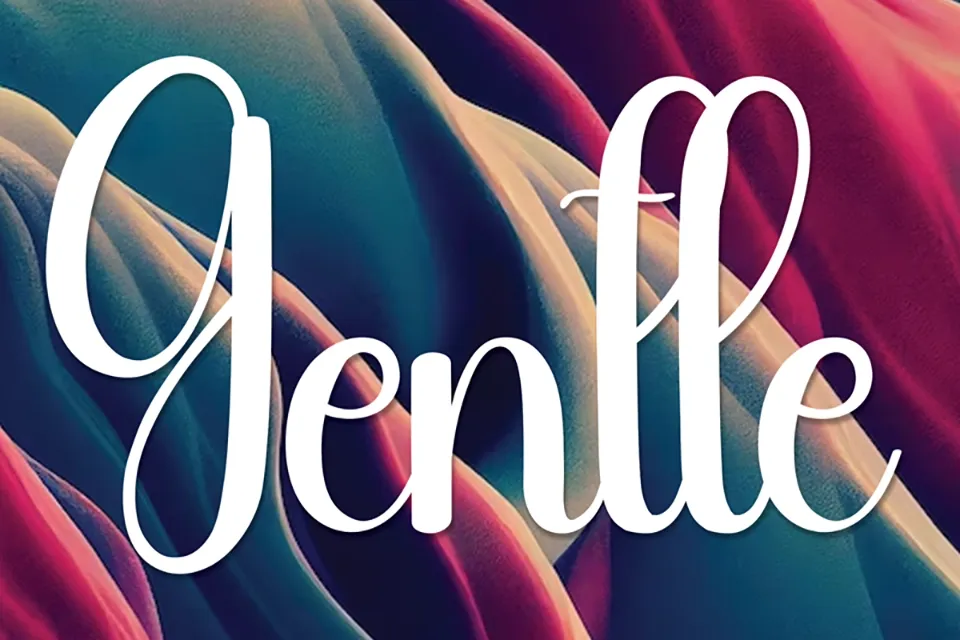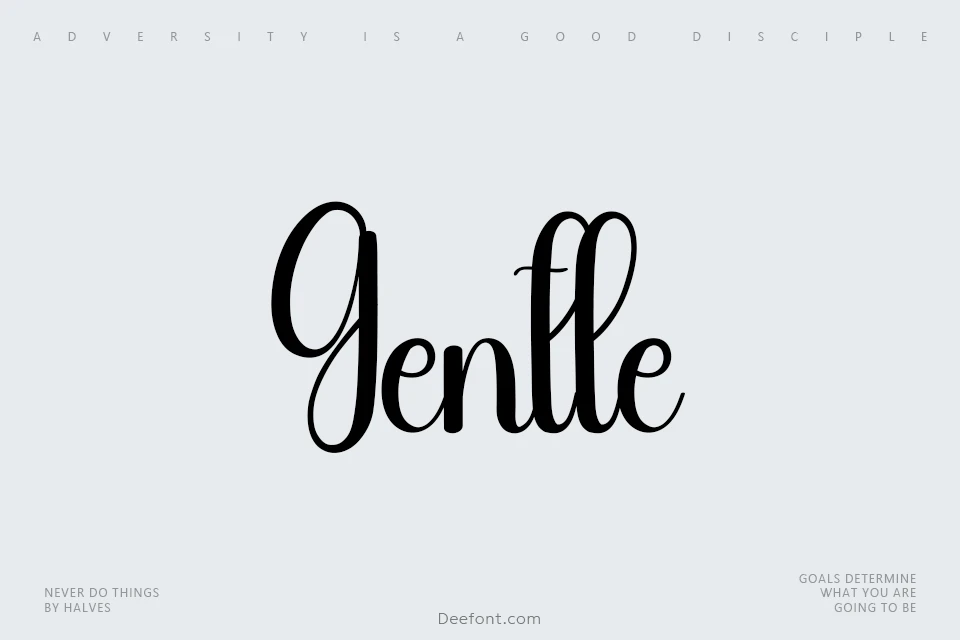
Gentle Script Font
Gentle Script Font is a sweet and friendly handwritten display font, ideal for wedding invitations, cards, and any project that needs a touch of charm and warmth. Its playful, bouncy letters and connected baseline create a warm and inviting aesthetic, making it perfect for creative, romantic, and whimsical designs.